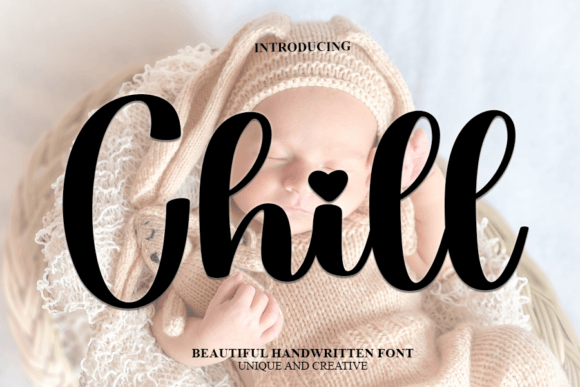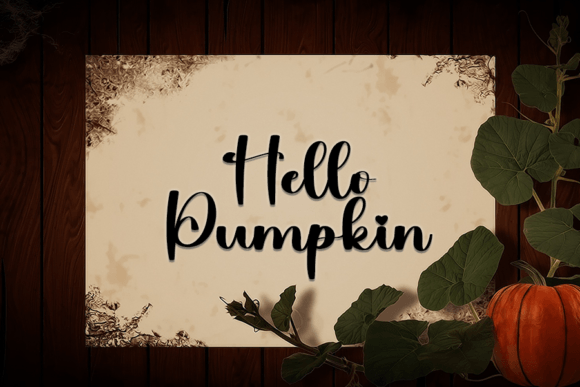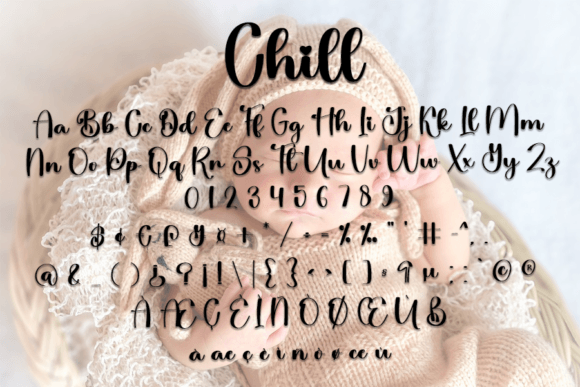
Find Your Creative Flow with Chill Font
Have you ever been in the middle of a creative project, staring at a blank page or screen, trying to come up with the perfect idea? That’s where the magic happens, and your imagination takes over. It’s in these moments that we need the right tools to bring our vision to life.
| 👤 Author | PAYJHOshop |
That’s where the Chill Font comes in – a beautiful, modern handwritten font designed to enhance the beauty of your projects. Inspired by classic calligraphy, Chill Font offers a perfect balance of style and sophistication. Not too thin, not too thick, this font is designed to add a touch of elegance to your designs.
As a designer, you know how important it is to have the right tools at your fingertips. That’s why the Chill Font is a valuable addition to your toolkit – it’s the perfect way to add a personal touch to your projects and make them truly stand out.
Key Features of Chill Font
- Unique Characteristics: Chill Font features a unique blend of modern and minimalist design elements, making it ideal for creating a calm and soothing atmosphere in branding, packaging, and digital design.
- Font Styles: Chill Font comes in 3 font styles: Regular, Italic, and Bold, providing versatility for creating different typography effects and emphasis in designs.
Designer Review: Chill Font
Overall, I’d say the Chill Font is a solid choice for a casual, relaxed vibe. ✨ Here are some things that work well:
- It’s easy to read, even at smaller font sizes.
- The font is versatile and can be used for a variety of projects, from social media graphics to print materials.
- It’s a great option for those who want a modern, clean look without the boldness of a sans-serif font.
- The font may not be suitable for formal or professional projects, as it can come across as a bit too casual.
- The font family is relatively small, with only a few weights and styles to choose from.
- It may not be the best choice for projects that require a lot of emphasis or hierarchy, as the font’s subtle nature can make it difficult to distinguish between different elements.
Overall, I’d give the Chill Font 3.5 out of 5 stars. While it’s a solid choice for casual projects, it may not be the best fit for more formal or complex designs.
For the most impact, use Chill Font in headings and titles to create a relaxed, casual atmosphere. You can also use it for body text to add a touch of sophistication. Experiment with different font sizes and styles to create visual interest.
- Brand identity and marketing materials
- Blog posts and articles
- Social media graphics and ads